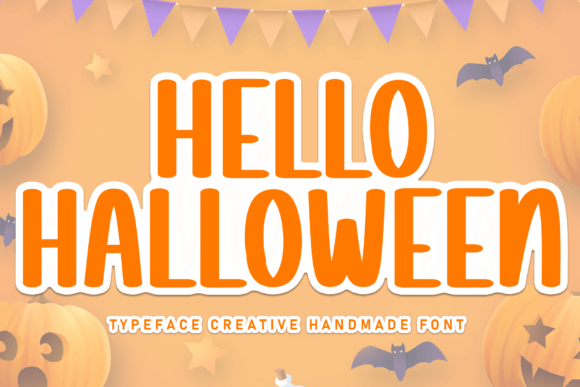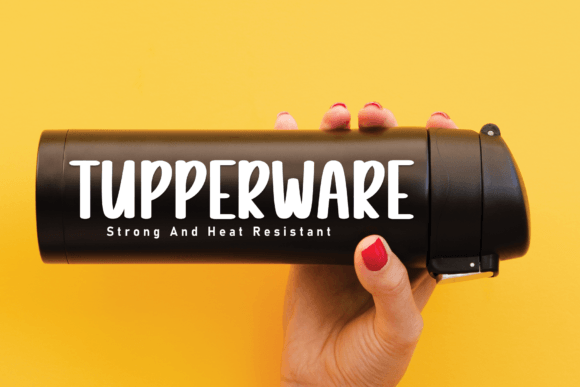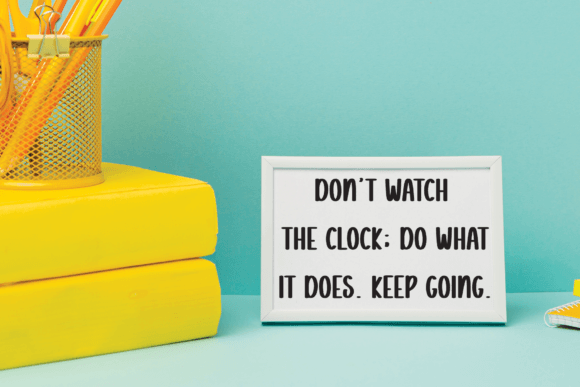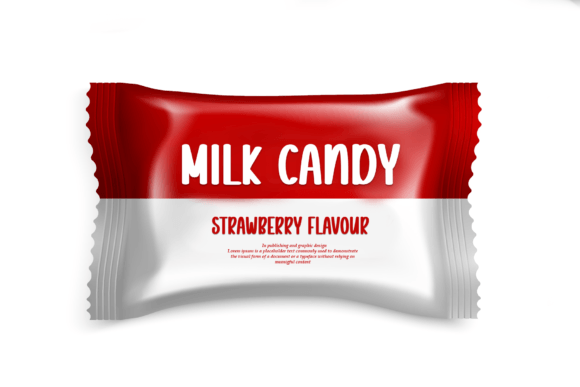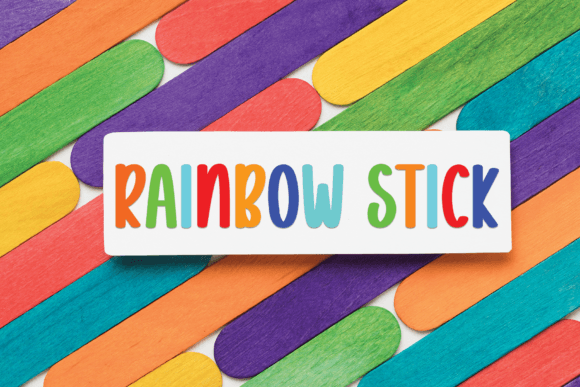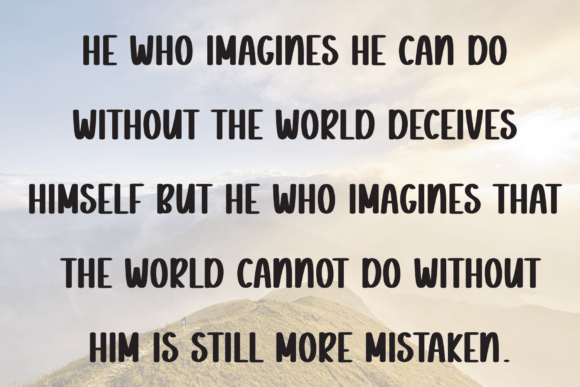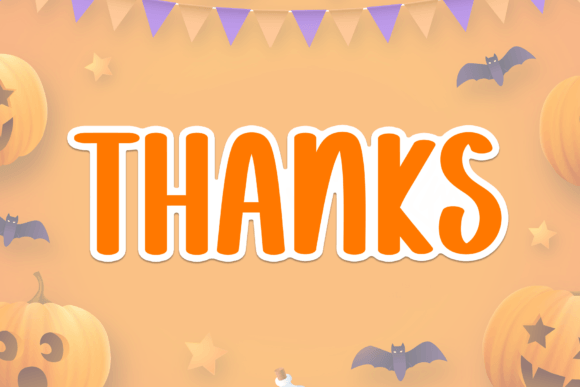
Spooky Season in Style: Unlocking the Magic of Hello Halloween Font
As the witching hour approaches, creative minds start to brew up a cauldron of spooky delights. But, what makes a design truly unforgettable? For designers seeking to cast a spell on their audience, the right font can be the magic ingredient. And, when it comes to conjuring up a sense of eerie elegance, Hello Halloween Font is the perfect potion.
This lovely and timeless handwritten font is a masterclass in whimsical charm, making it the go-to choice for creating eye-catching logos, branding, and quotes that are sure to leave a lasting impression. Every letter has a unique and beautiful touch, which will bring your design to life and leave your audience spellbound.
For designers looking to add a touch of Halloween magic to their work, Hello Halloween Font is an invaluable asset. Its versatility and timeless appeal make it a valuable addition to any design toolkit, ensuring that your creations will be remembered long after the spooky season has passed.
Hello Halloween Font Key Features
- Font Style: A spooky, Halloween-themed font with a playful and eerie feel.
- Unique Characteristics: Includes a range of special characters, such as bats, ghosts, and jack-o-lanterns, adding to the Halloween theme.
Hello Halloween Font Review
As a designer, I was excited to dive into the “Hello Halloween Font” and see how it stacks up against other spooky fonts. Overall, I found it to be a fun and playful addition to any design project.
- Unique and quirky characters: The font features some really fun and creative characters that are perfect for adding a touch of whimsy to your designs.
- Good for titles and headings: The font is bold and attention-grabbing, making it perfect for use in titles and headings.
- Easy to read: Despite its playful nature, the font is still easy to read, even at smaller sizes.
- Limited language support: The font only includes characters for the Latin alphabet, which may limit its use for designs that require other languages.
- Not ideal for body text: While the font is great for titles and headings, it may not be the best choice for body text due to its bold and playful nature.
Overall, I think the “Hello Halloween Font” is a fun and creative addition to any design project. While it may have some limitations, it’s perfect for adding a touch of spooky flair to your designs.
Tips for Getting the Most Out of the Hello Halloween Font
To get the most out of the Hello Halloween Font, use it in combination with other spooky-themed graphics and colors. Experiment with different font sizes and colors to create a cohesive look. Use the font for headings and titles to add a touch of Halloween spirit to your designs.
The Hello Halloween Font is perfect for creating spooky invitations, posters, and social media graphics. It’s also great for adding a touch of Halloween magic to your website or blog. Use it to create a cohesive look for your Halloween-themed content and make it stand out from the crowd.